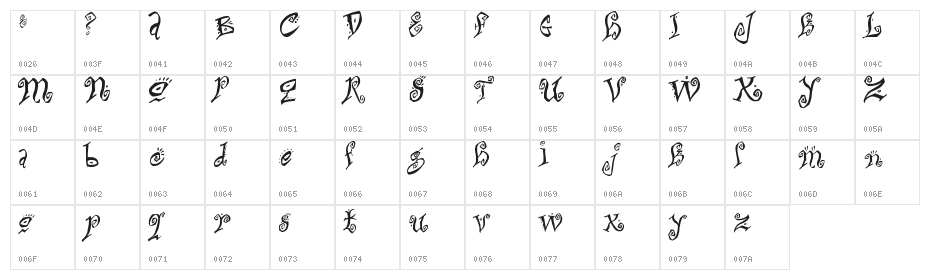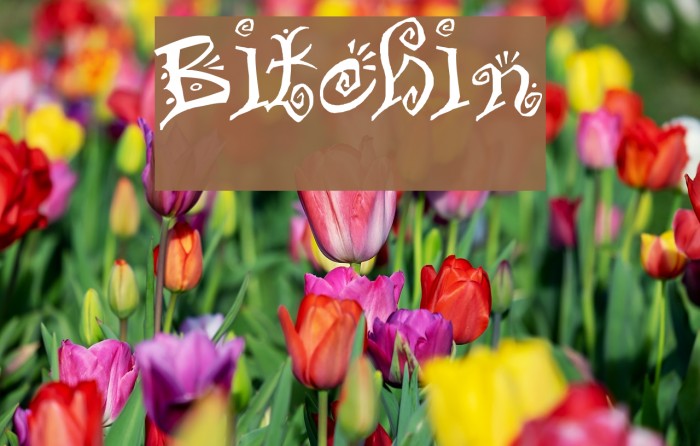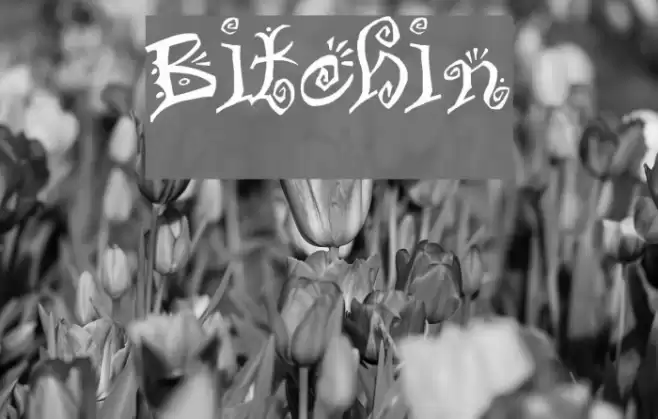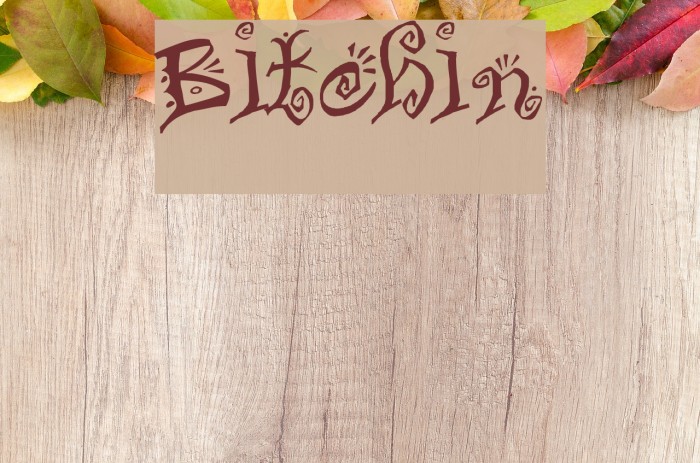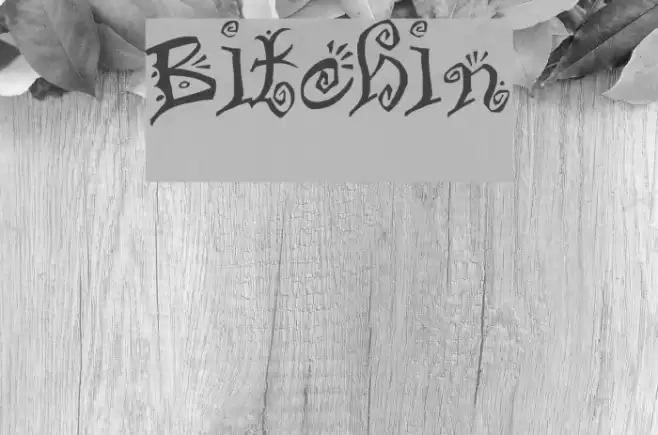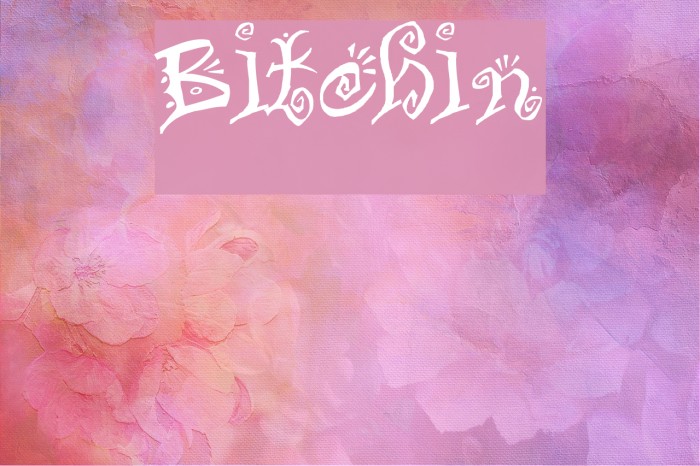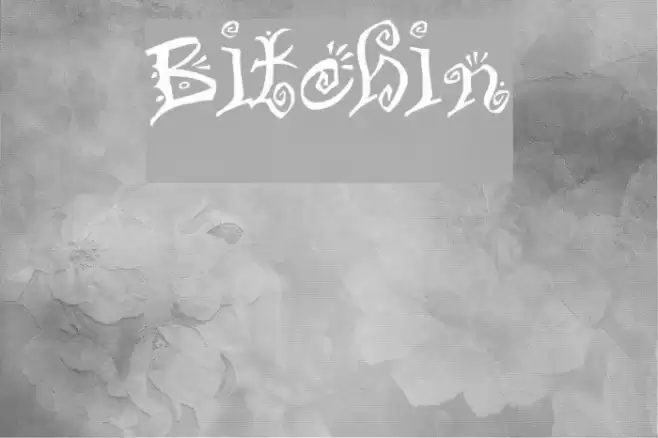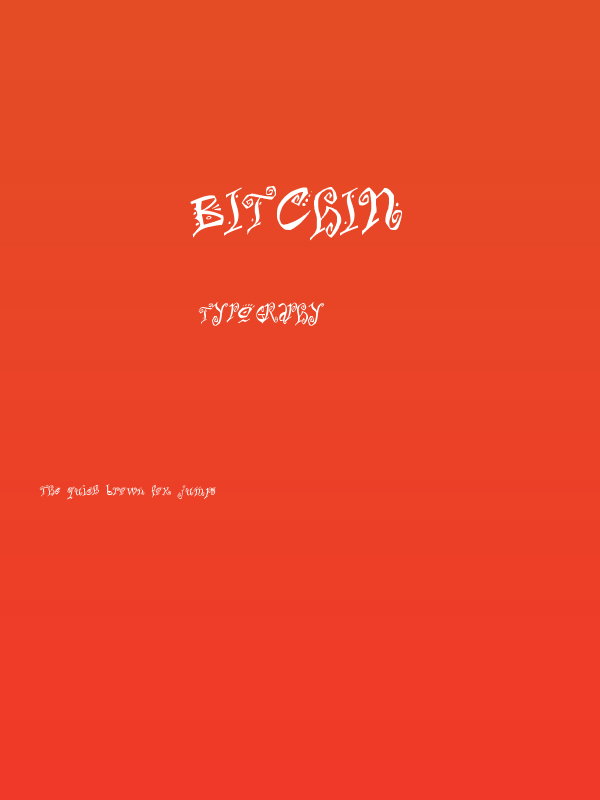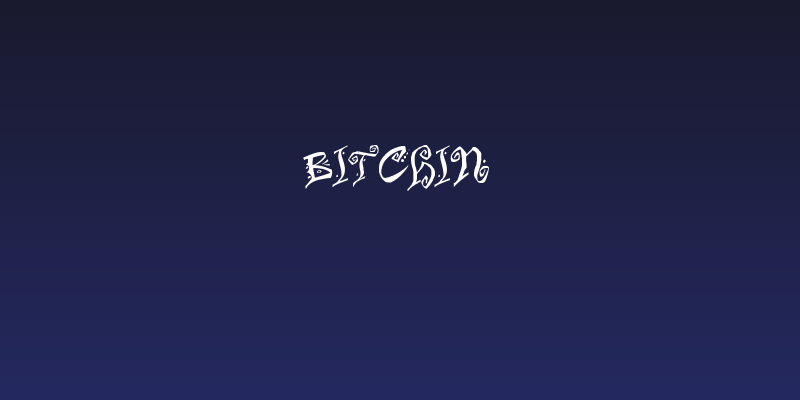
Bitchin Font
Bitchin Description
This font features a whimsical and decorative style, characterized by its playful and exaggerated letterforms. Each character is adorned with unique embellishments, such as swirls and dots, giving it a lively and dynamic appearance. The strokes are bold and varied, with some letters having sharp, angular edges while others are more rounded and fluid. This creates a high contrast in stroke thickness, adding to its eye-catching nature. The font's overall design is reminiscent of a fantasy or magical theme, making it suitable for creative and imaginative projects.
| Proposed Projects | Ideal for fantasy-themed posters, children's book covers, playful branding, and creative invitations. |